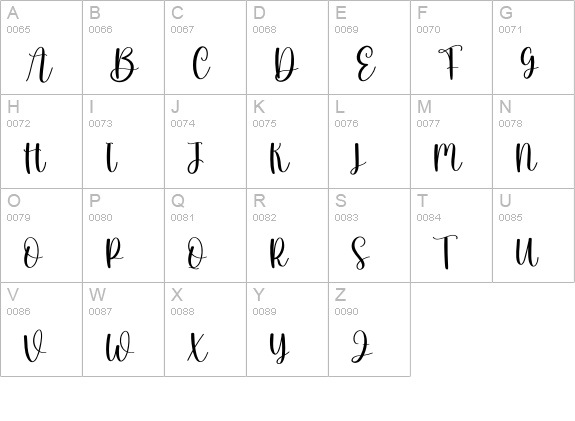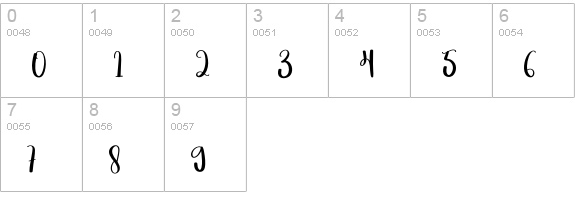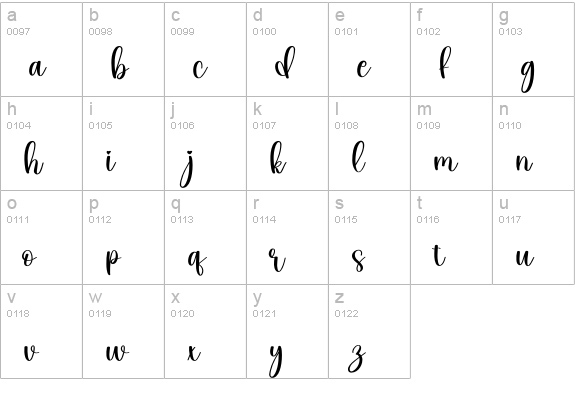
Bemonade Font Details
Bemonade is a free for personal use font in the Script > Handwritten category, designed by scratchones. It has been downloaded 31 times and is available for Windows, Mac and Linux.
Bemonade font is a quirky and playful typeface that exudes charm and creativity. With its unique design and charming curves, Bemonade is perfect for adding a touch of whimsy to any project. This versatile font is ideal for a variety of uses, from branding to editorial design.
What sets Bemonade font apart is its delightful combination of elegance and fun, making it a standout choice for those seeking to make a statement with their typography. Whether you're designing a poster, logo, or invitation, Bemonade will bring a sense of joy and personality to your work.